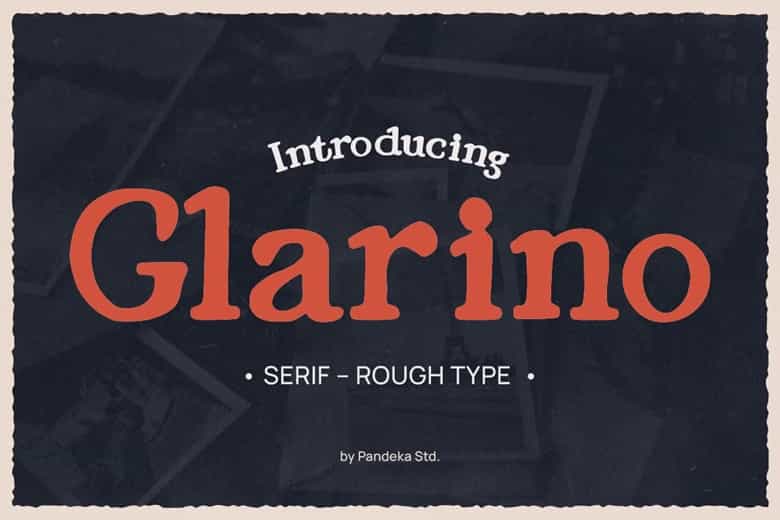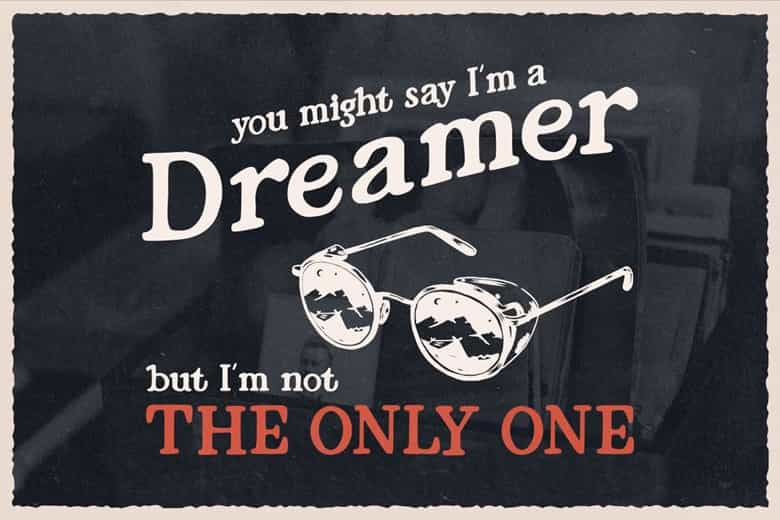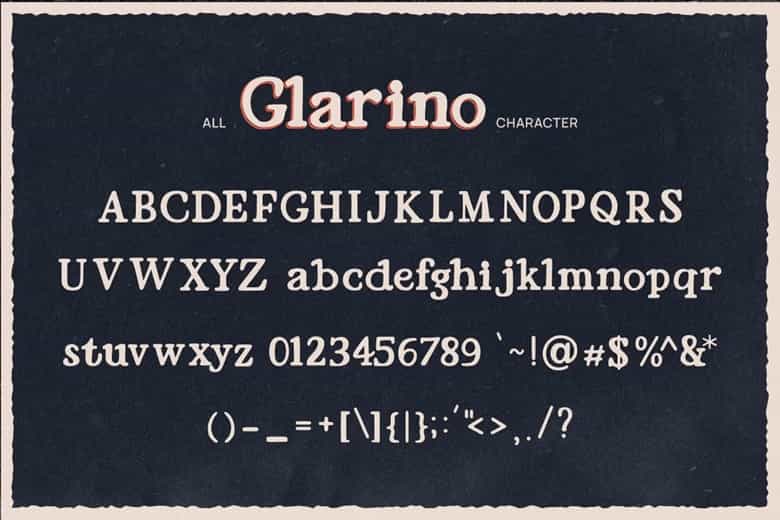
Glarino is a serif typeface with taste of retro, symmetrical and filled with elegant curves and lines and strong edges. Created for elegant and classic designs Glarino evokes the spirit of packaging from the 20s and 30s and can be used for branding, packaging, editorial and headlines.